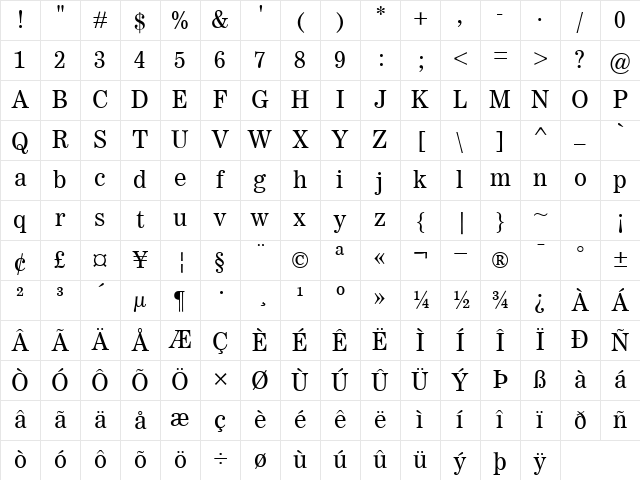
Worldwide Regular Free Font
Worldwide Regular
Design Context for Worldwide
Worldwide is a composed and adaptable typeface that performs quietly and consistently across a wide range of design contexts.
Pro Tip: Use Worldwide in both headline and body roles to test its range before committing to a single application.